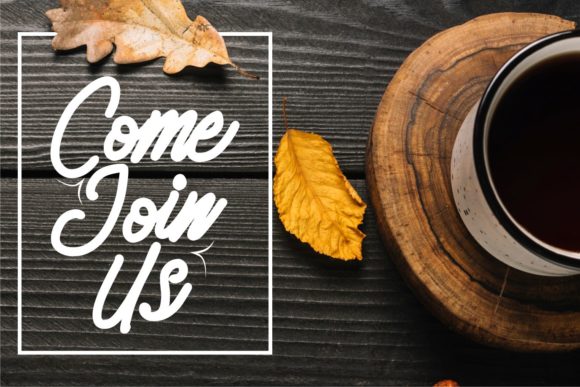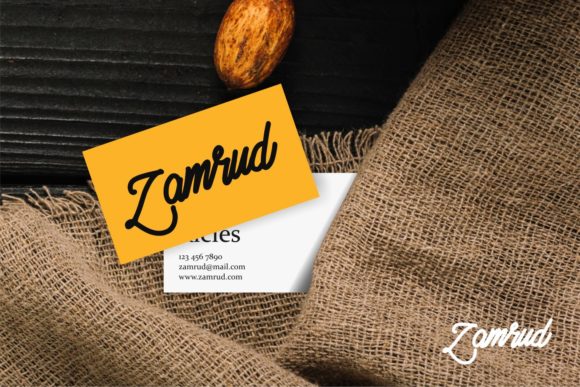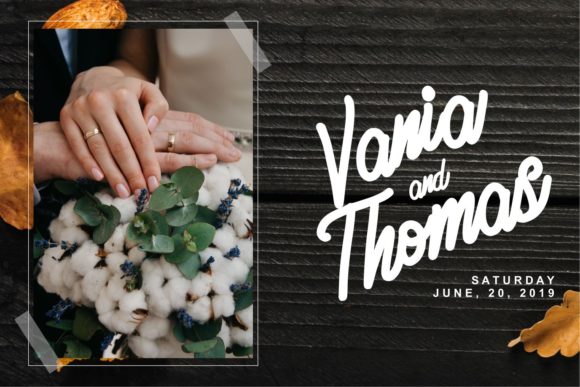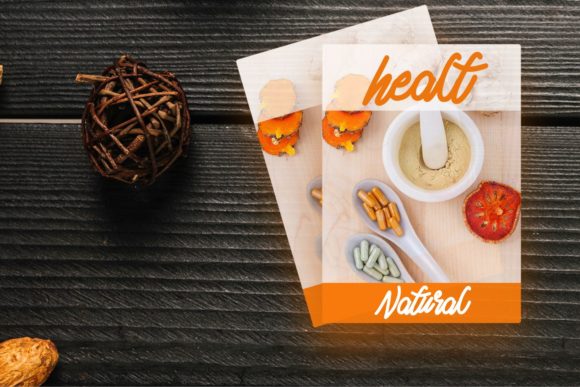
HomeScript FontsRimona Font Script Fonts Rimona Font FacebookXPinterestWhatsApp Rimona Font Poster 2 Rimona Font Poster 3 Rimona Font Poster 4 Rimona Font Poster 5 About Rimona Font Rimona is a sweet and casual script with a cool twist. Use it to add a touch of simplicity to any design! DOWNLOAD NOW People also explored Goteru Font Bahjera Mingkung Font Typograph Font Knitted Santa Sweater Font Sanford Region Jungland Outline Extra Light Font Gina Angle Font Wonder Santani Font 330 0 TagsRimona Font Previous articleBeauty in Red FontNext articleArsa Font LEAVE A REPLY Cancel reply Comment: Please enter your comment! Name:* Please enter your name here Email:* You have entered an incorrect email address! Please enter your email address here Website: Save my name, email, and website in this browser for the next time I comment. Personal Use Free Masker Area Personal Use Free Read more about this font Spaghetti Personal Use Free Read more about this font Nulshock Bold Personal Use Free Read more about this font Ailand Personal Use Free Read more about this font BLOG Exploring Font Trends Shaping Communication in the Digital Era Fonts, like all design elements, are subject to trends. They play a crucial role in communicating a brand's personality,... Elegant Wedding Invitation Fonts – Handwritten & Script Fonts How to Cut Any Font on Cricut: Convert a Font to SVG (Free) Fonts That Capture the Spirit of New York City